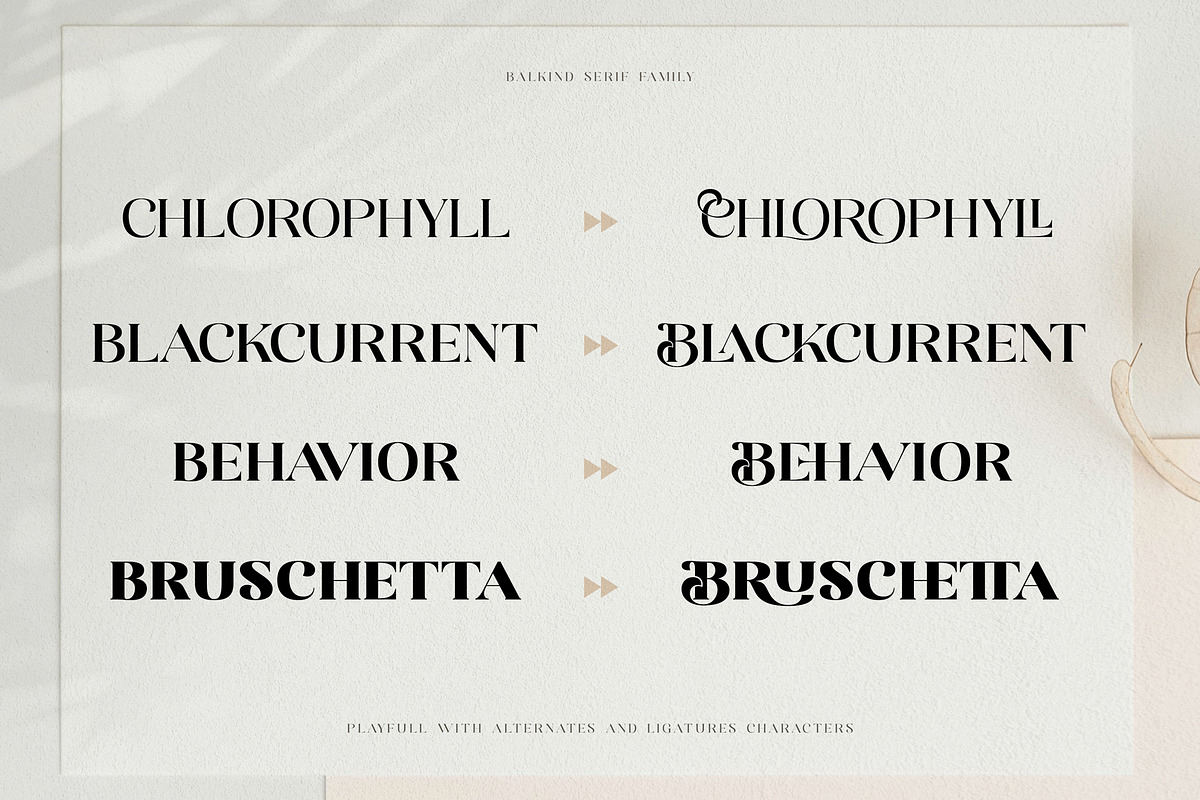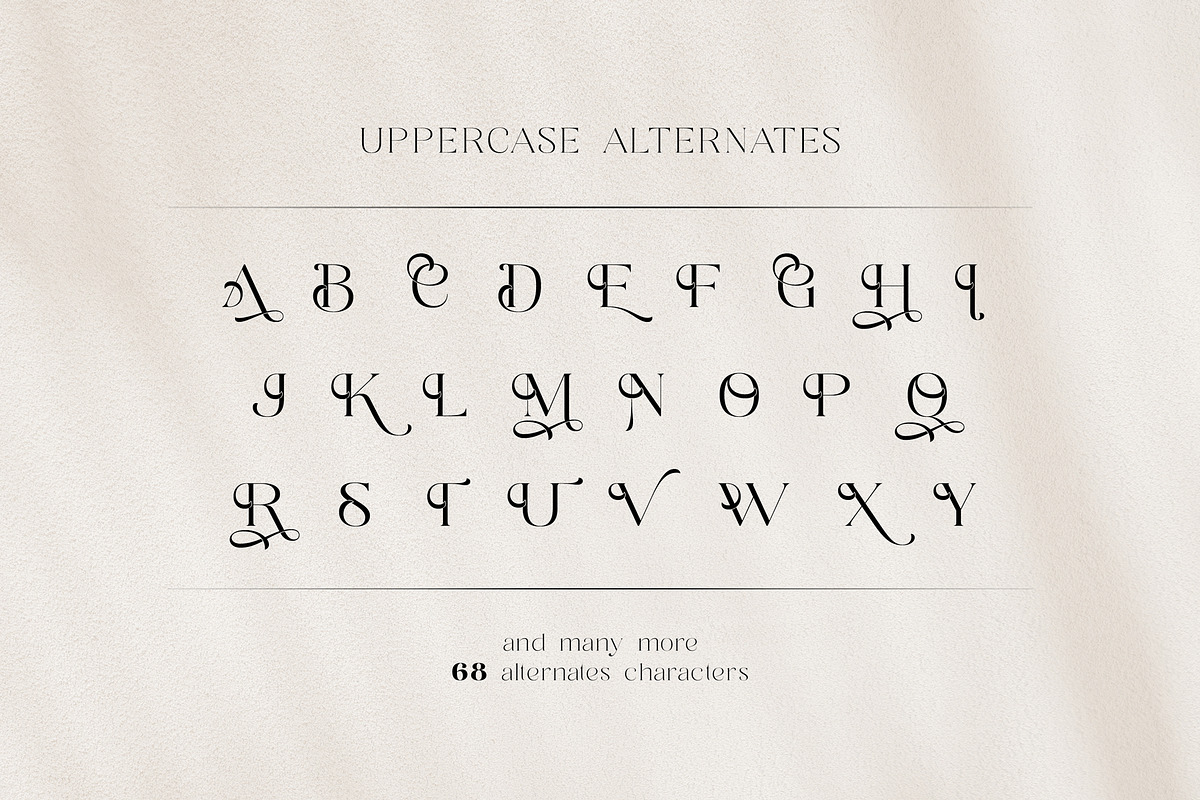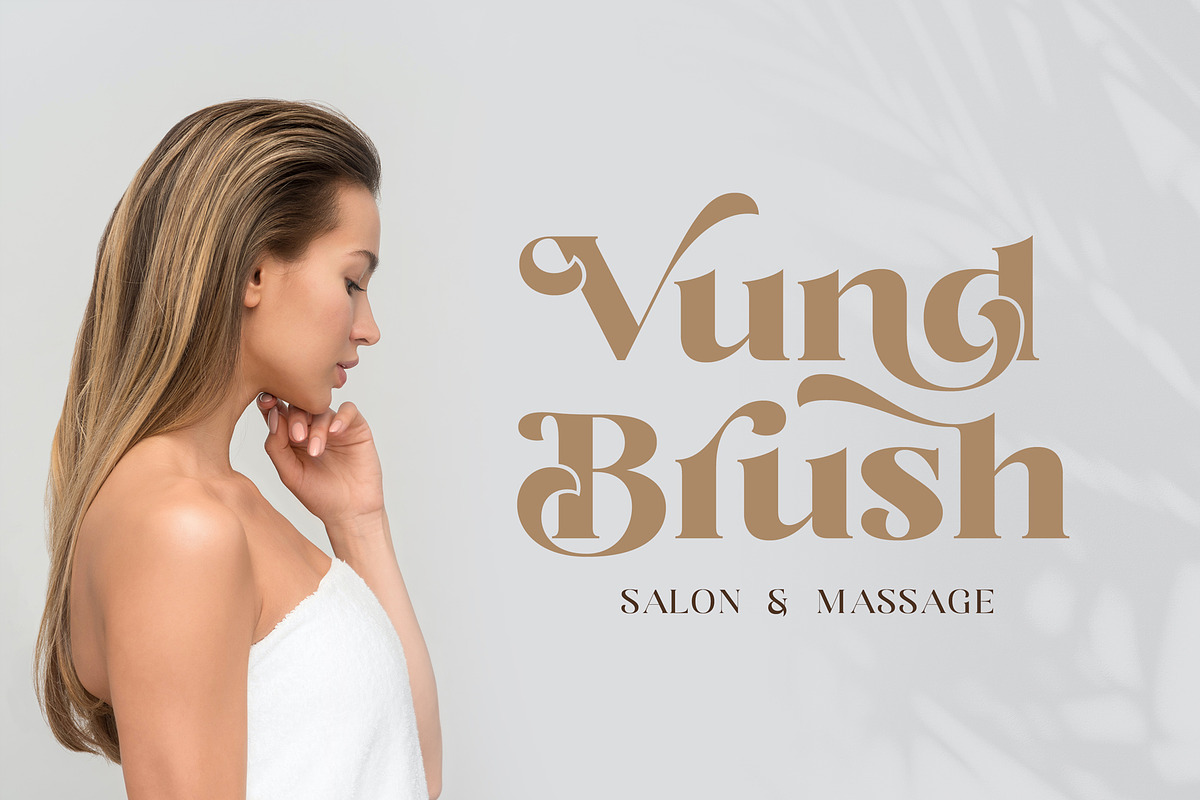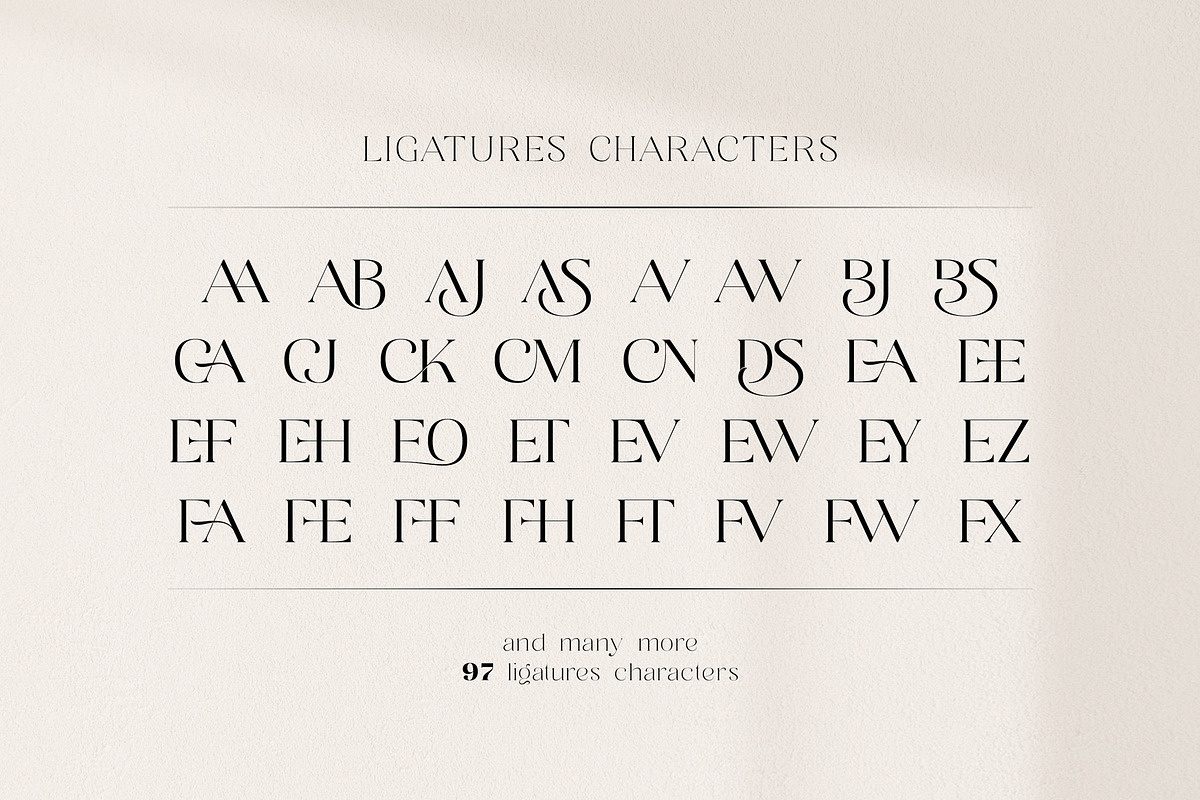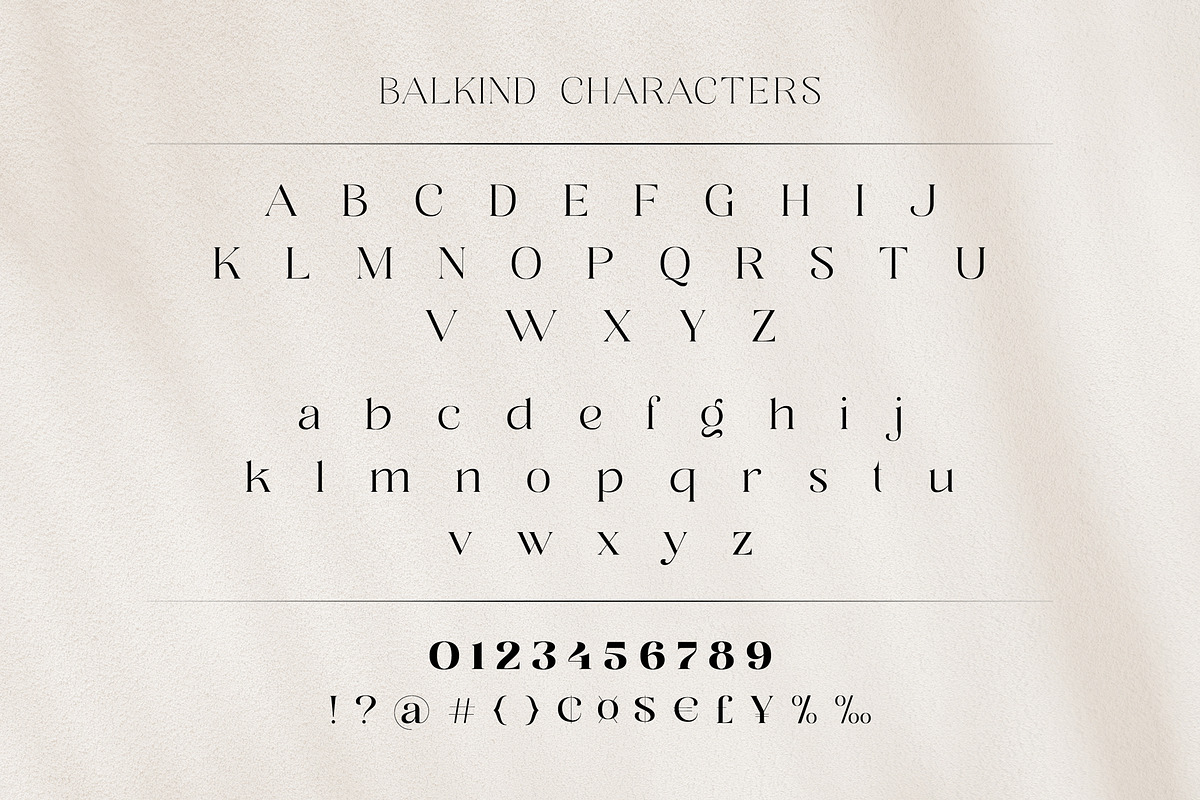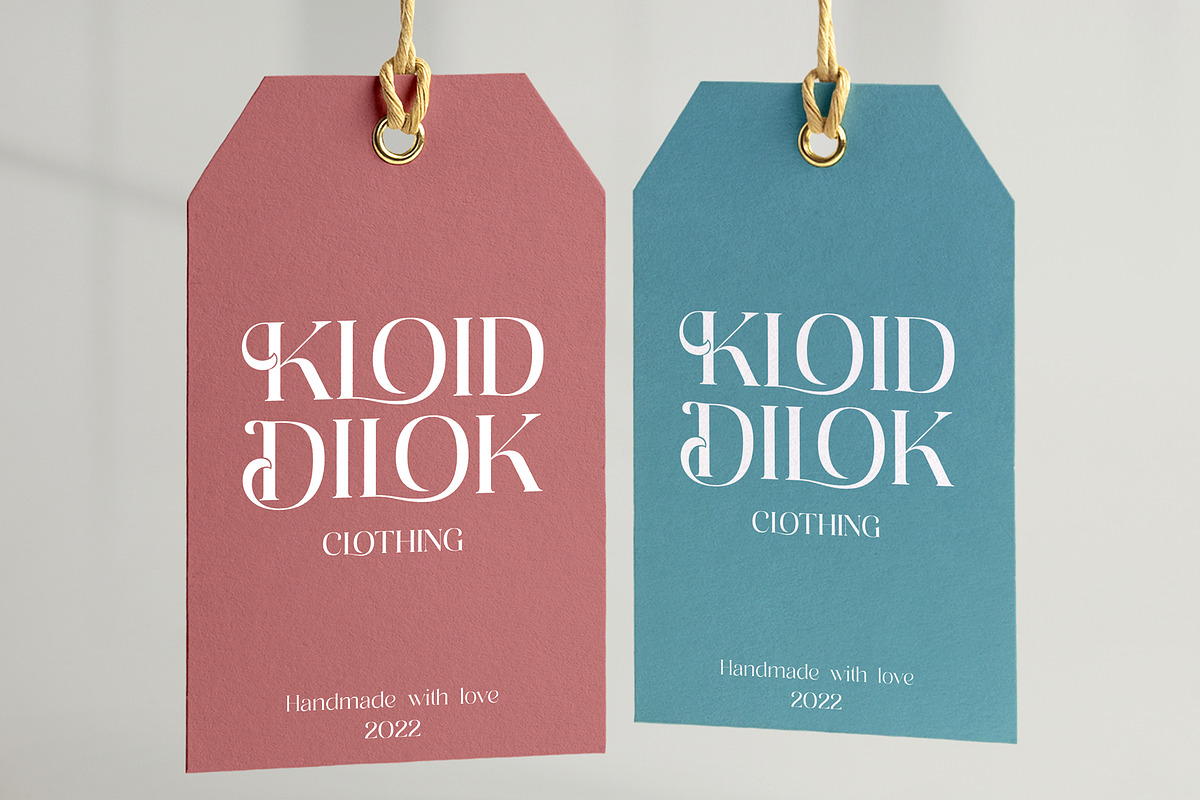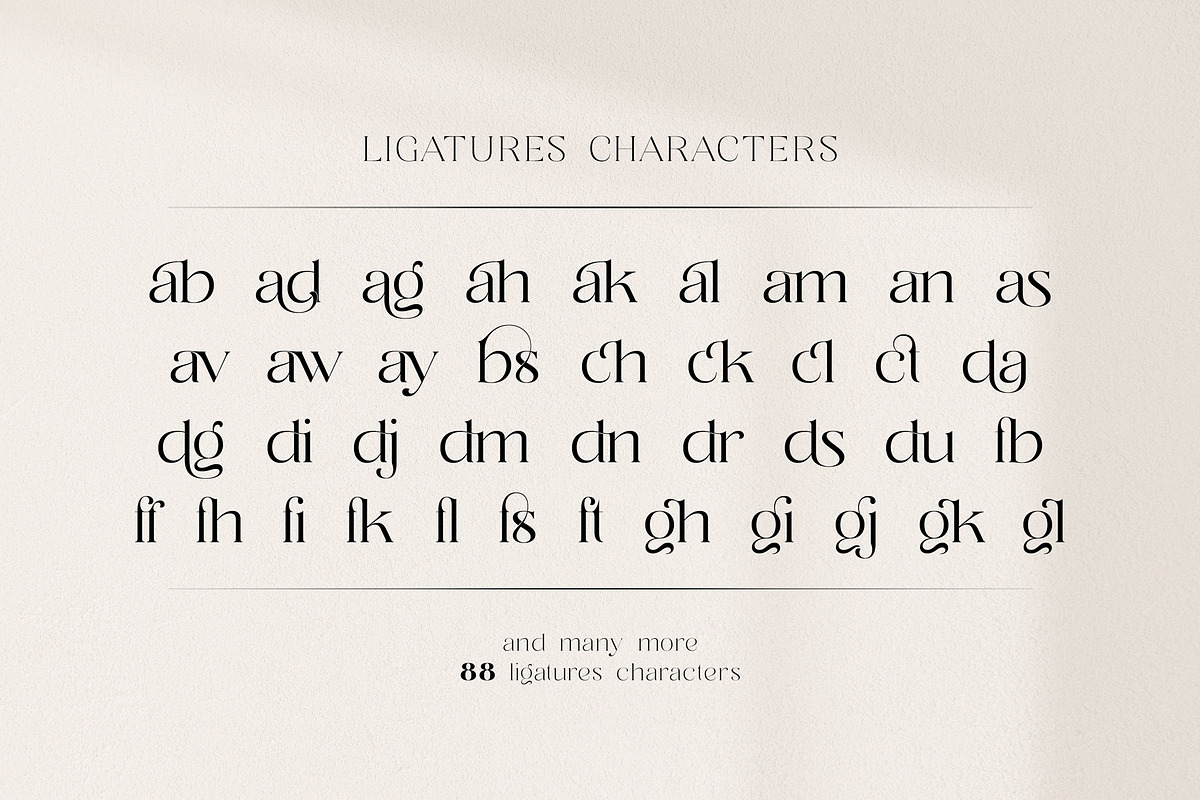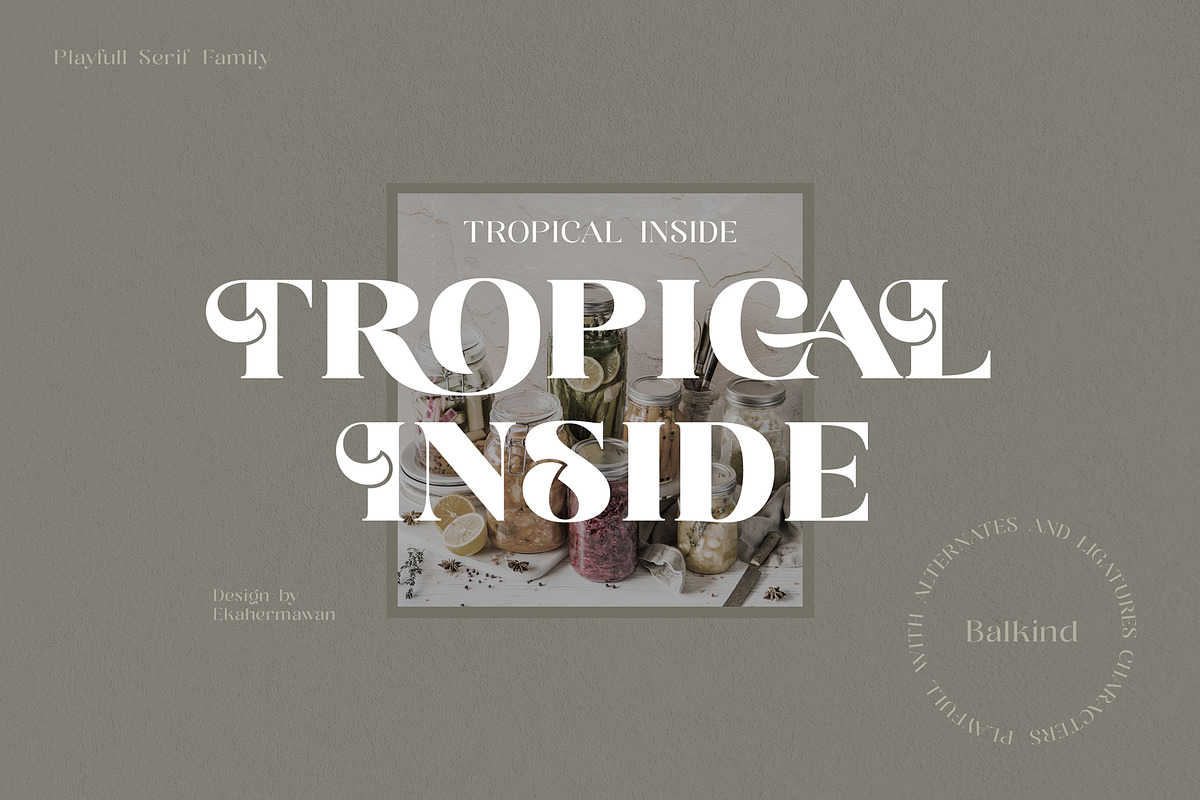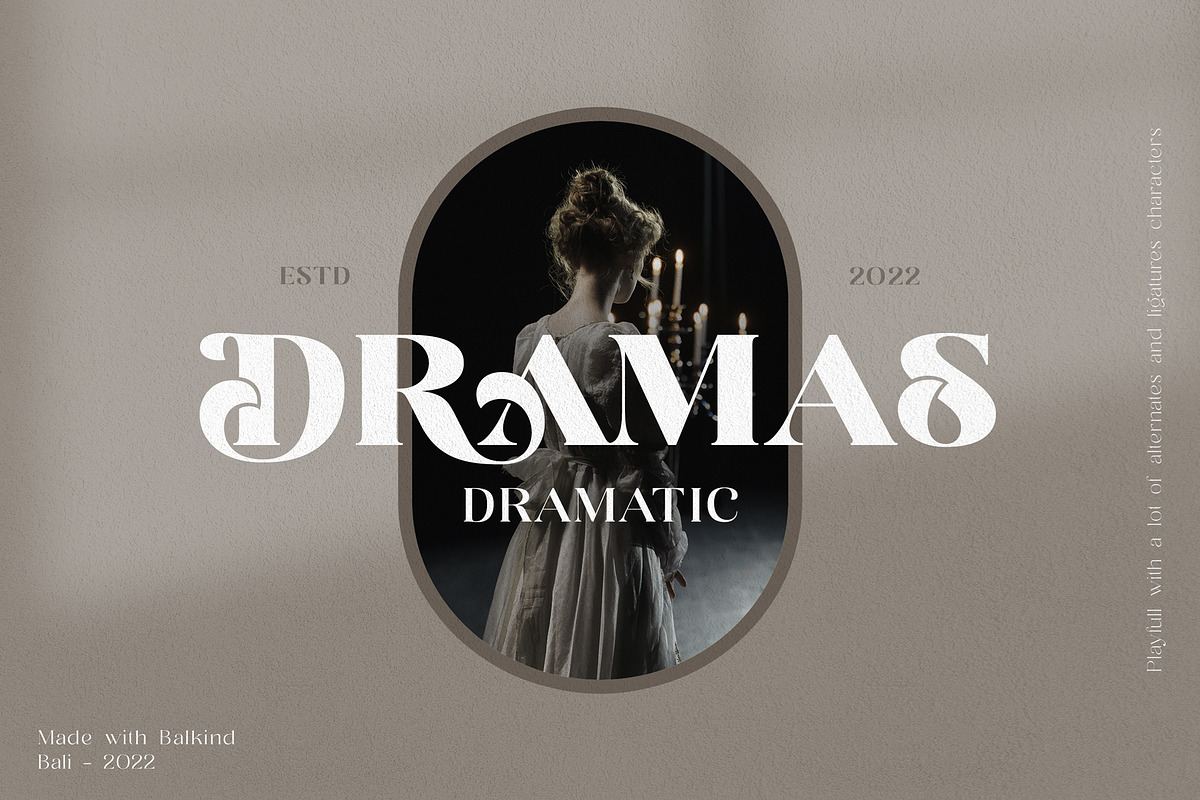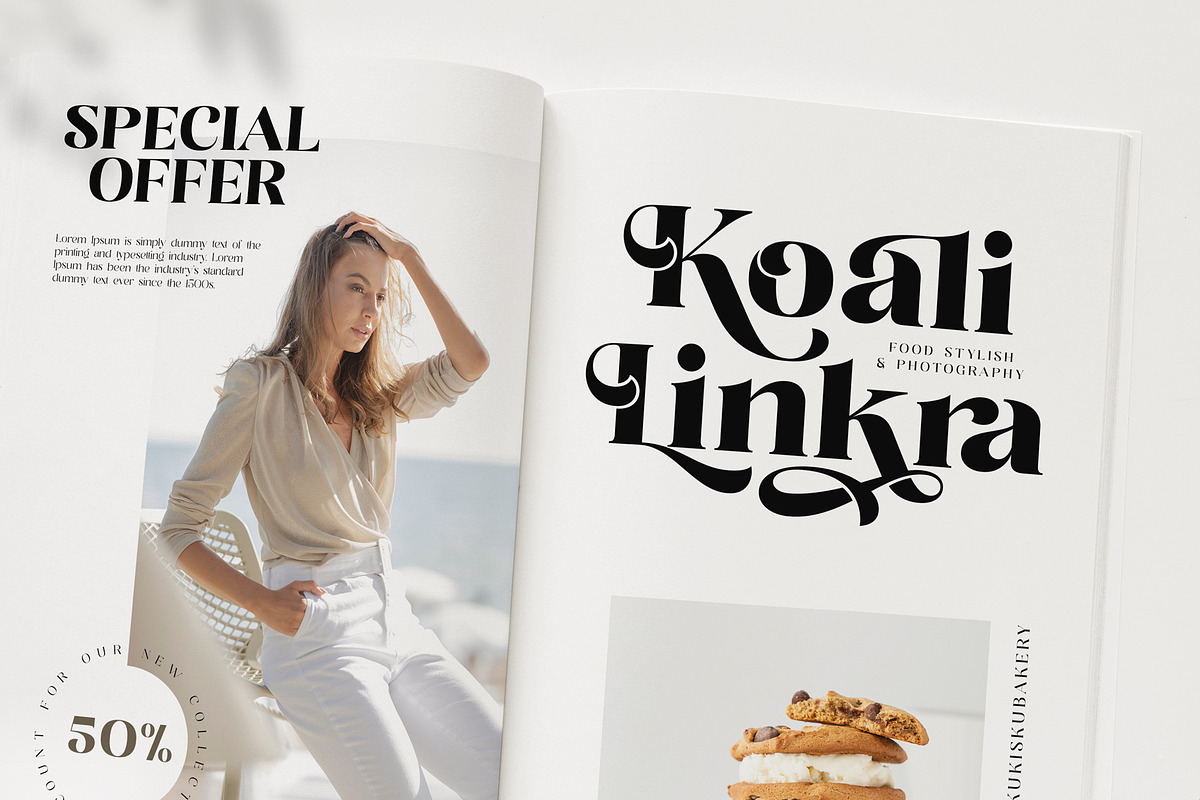
Balkind - Modern Beauty Serif Font
Proudly present Balkind is a playfull and beauty serif family that consists of 7 weights from Thin to ExtraBold. All the alternates and ligatures characters of Balkind are specially designed to make your typography design result looks more unique and attractive. Balkind also comes with ornaments that will support your creativity in creating many design projects such as logo design, branding, poster, magazines, labels, merchandise, invitation, presentation, advertising and so much more!
- Playful to use (with ligatures and alternates options)